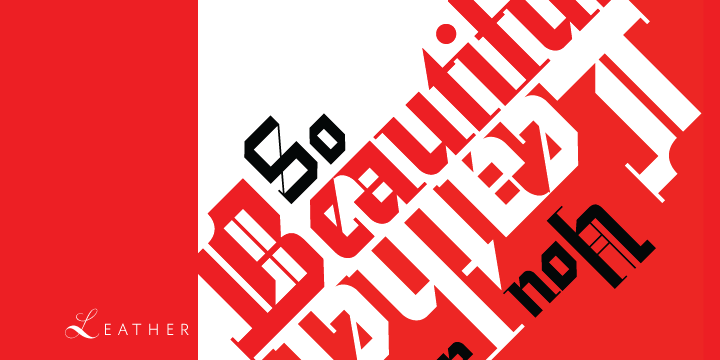
Leather is a blackletter font family. This typeface has two styles and was published by Canada Type.
Over the past few years, every designer has seen the surprising outbreak of blackletter types in marketing campaigns for major sports clothing manufacturers, a few phone companies, soft drink makers, and more recently on entertainment and music products. In such campaigns, blackletter type combined with photos of usual daily activity simply adds a level of strength and mystique to things we see and do on a regular basis.
But we couldn’t help noticing that the typography was very odd in such campaigns, where the type overpowers all the other design elements. This is because almost all blackletter fonts ever made express too much strength and time-stamp themselves in a definite manner, thereby eliminating themselves as possible type choices for a variety of common contemporary design approaches, such as minimal, geometric, modular, etc.
So extending the idea of using blackletter in modern design was a bit of a wild goose chase for us. But we finally found the face that completes the equation no other blackletter could fit into: Leather is a digitization and major expansion of Imre Reiner’s forgotten but excellent 1933 Gotika design, which was very much ahead of its time. In its own time this design saw very little use because it caused problems to printers, where the thin serifs and inner bars were too fragile and broke off too easily when used in metal. But now, more than seventy years later, it seems like it was made for current technologies, and it is nothing short of being the perfect candidate for using blackletter in grid-based settings.
Leather has three features usually not found in other blackletter fonts:
- Grid-based geometric strokes and curves: In the early 1930s, blackletter design had already begun interacting back with the modern sans serif it birthed at the turn of the century. This design is one of the very few manifestations of such interaction.
- Fragile, Boboni-like serifs, sprout from mostly expected places in the minuscules, but are sprinkled very aesthetically on some of the majuscules. The overall result is magnificently modern.
- The usual complexity of blackletter uppercase’s inner bars is rendered simple, geometric and very visually appealing. The contrast between the inner bars and thick outer strokes creates a surprising circuitry-like effect on some of the letters (D, O, Q), wonderfully plays with the idea of fragile balances on some others (M, N and P), and boldly introduces new concepts on others (B, F, K, L, R).
Our research seems to suggest that the original numerals used with this design in the 1930s were adopted from a previous Imre Reiner typeface. They didn’t really fit with the idea of this font, so we created brand new numerals for Leather. We also expanded the character set to cover all Western Latin-based languages, and scattered plenty of alternates and ligatures throughout the map.
The name, Leather, was derived from a humorous attempt at naming a font. Initially we wanted to call it Black Leather (blackletter…blackleather), but the closer we came to finishing it, the more respect we developed for its attempt to introduce a plausible convergence between two entirely different type categories. Sadly for the art, this idea of convergence didn’t go much further back then, due to technological limitations and the eventual war a few years later. We’re hoping this revival would encourage people to look at blackletter under a new light in these modern times of multiple design influences.